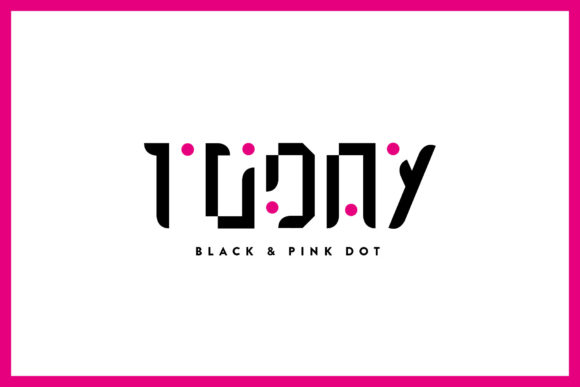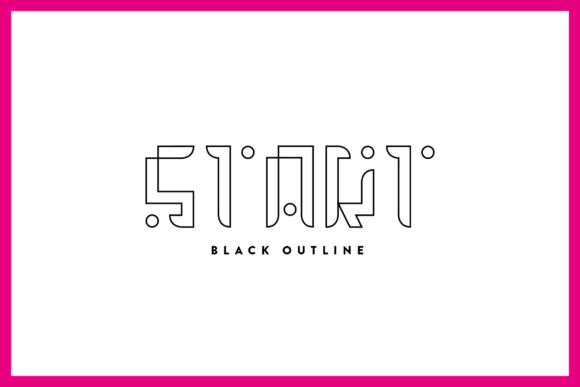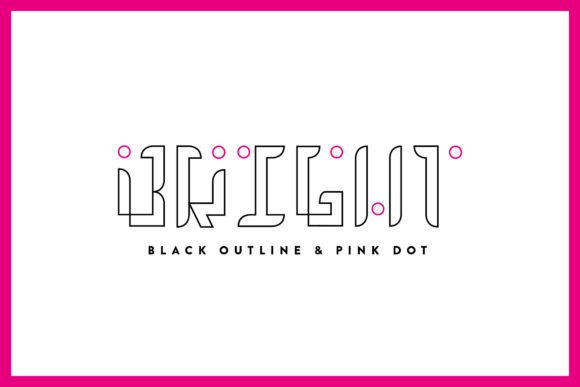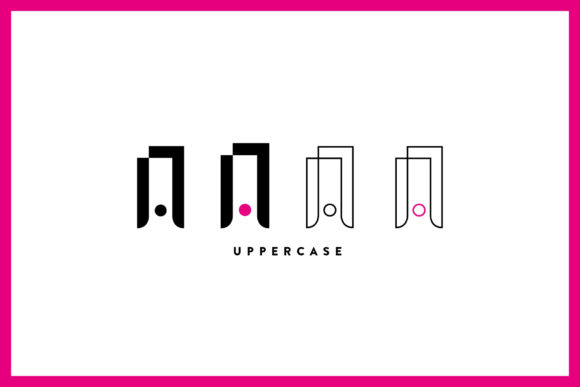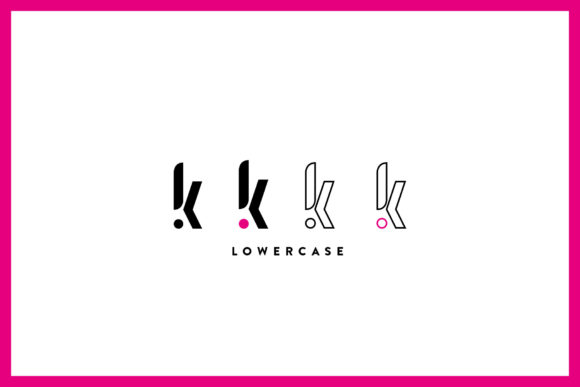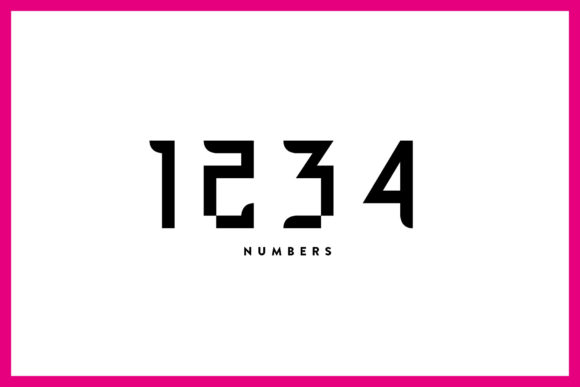
Unleash the Mystique: Exploring the Dotery Font
Are you a designer or crafter looking to add an otherworldly touch to your creations? Look no further than the Dotery Font, a unique and captivating decorative font that combines geometric style with digital-looking characters. In this article, we’ll dive into the fascinating world of Dotery, exploring its features, uses, and the magic it can bring to your designs.
The Dotery Difference: A Blend of Geometry and Digital Style
Dotery is an interesting decorative font that stands out from the crowd. Its distinctive blend of geometrical style and digital-looking characters gives it an unmistakable edge. The font’s geometric elements provide a sense of structure and order, while the digital characters add a touch of futurism and mystery. This intriguing combination makes Dotery perfect for designers and crafters seeking to create something truly unique.
Transform Your Creations with Dotery
With Dotery, you can transform the look of your creations into unearthly and mysterious crafts. Whether you’re working on a logo, branding project, or craft design, this font will add an air of mystique and intrigue. Imagine using Dotery to create:
- Ethereal logos that transport your brand to another dimension
- Whimsical craft designs that capture the imagination
- Digital art pieces that pulse with an otherworldly energy
Key Features of Dotery Font
So, what makes Dotery so special? Here are some of its key features:
- Geometrical style: Dotery’s geometric elements provide a sense of structure and order
- Digital-looking characters: The font’s digital characters add a touch of futurism and mystery
- Decorative: Dotery is a decorative font, perfect for adding a touch of elegance and sophistication to your designs
- Unique: With its blend of geometric and digital elements, Dotery is a truly one-of-a-kind font
Using Dotery in Your Designs
So, how can you use Dotery in your designs? Here are some ideas to get you started:
- Pair with bold colors: Combine Dotery with bold, vibrant colors to create a truly eye-catching design
- Experiment with textures: Add texture to your design by layering Dotery with other fonts, shapes, or graphics
- Play with scale: Use Dotery in a variety of sizes to create visual interest and hierarchy in your design
Who Can Benefit from Dotery?
Dotery is perfect for a range of designers and crafters, including:
- Graphic designers: Add a touch of mystique to your logos, branding projects, and marketing materials
- Crafters: Use Dotery to create unique and eye-catching craft designs, such as signs, posters, and cards
- Digital artists: Combine Dotery with other digital elements to create stunning works of art
In conclusion, Dotery is a fascinating decorative font that can add an otherworldly touch to your designs. With its unique blend of geometric and digital elements, Dotery is perfect for designers and crafters seeking to create something truly unique. Whether you’re working on a logo, branding project, or craft design, Dotery is sure to transform your creations into unearthly and mysterious crafts.